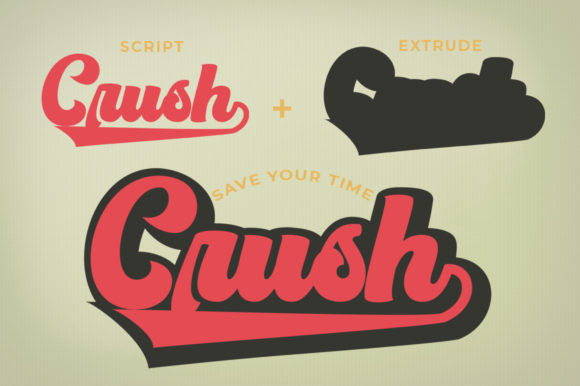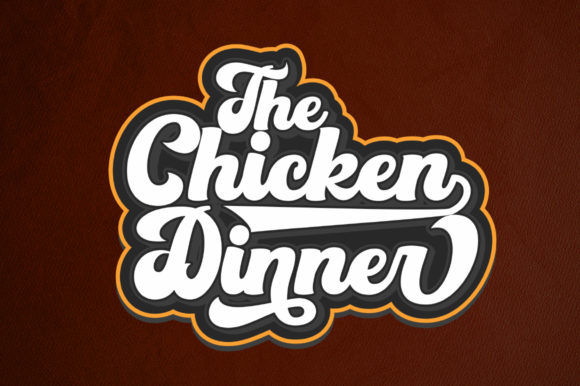
Groenly Script Font
db-ku.com - Script & Handwritten -- The Groenly Script delivers a classic calligraphic style with a retro edge. Get inspired by its groovy feel!